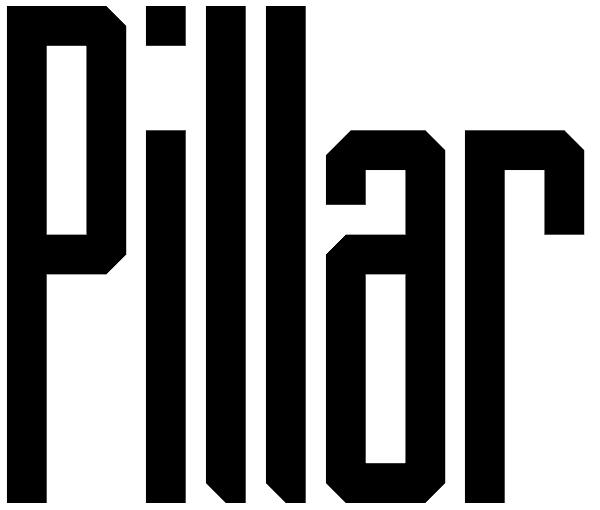
Pillar
The font Pillar is inspired by steel pillars that support buildings and bridges together. In similar fashion, the font is designed to support the content for which it will be used. The font is intended to be used as a header or headline font, but a...